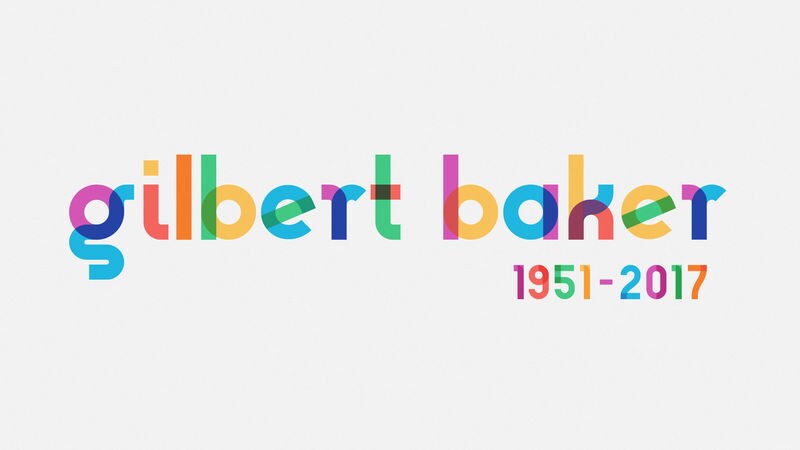
At the end of March, 2017, the LGBTQ community lost Gilbert Baker, an iconic designer from the early days of the community's fight for rights, and the Gilbert font has been created to commemorate the man and his most famous work. Though the name Gilbert Baker likely doesn't ring any bells, he is the designer of the rainbow pride flag, perhaps the single most recognizable icon of the LGBTQ community.
In honor of Baker's legacy, NewFest and NYC Pride partnered with Fontself to create the Gilbert font. Available as a complete family of weights and styles, the font is free to download on a purpose-built site. While it can be used as a standard vector font, it is most true to its purpose when typed in color.
The Gilbert Font Commemorates the Designer of the Gay Pride Flag